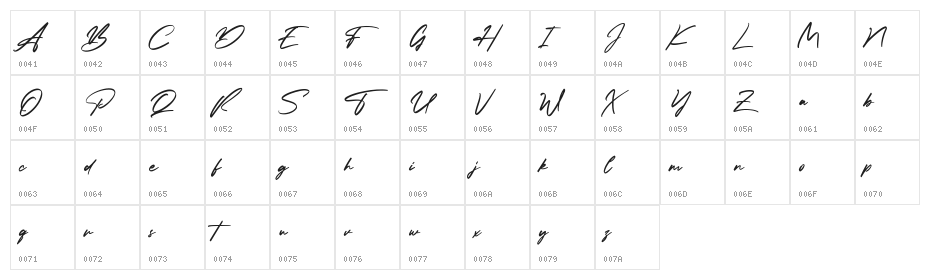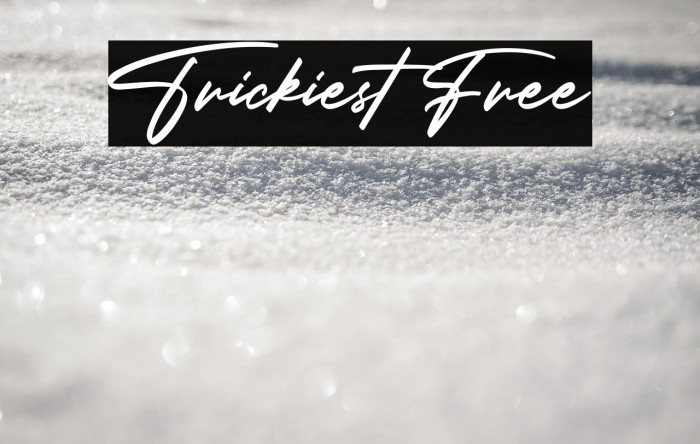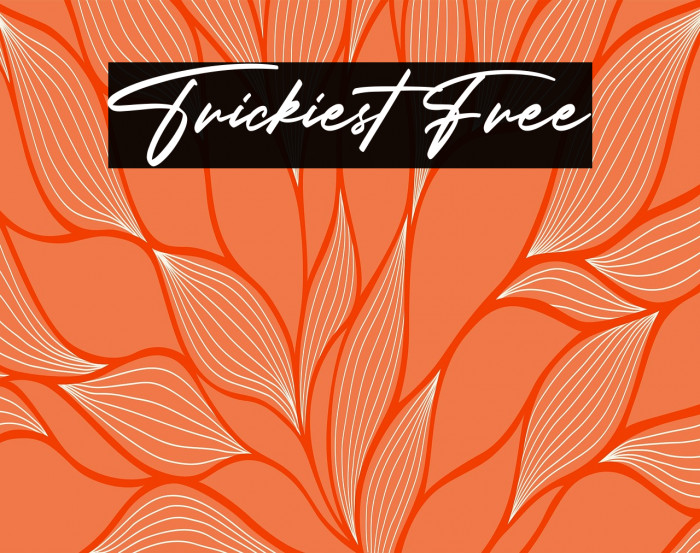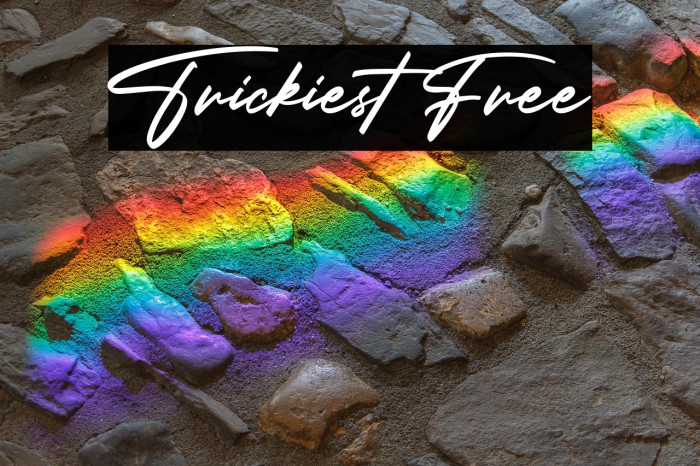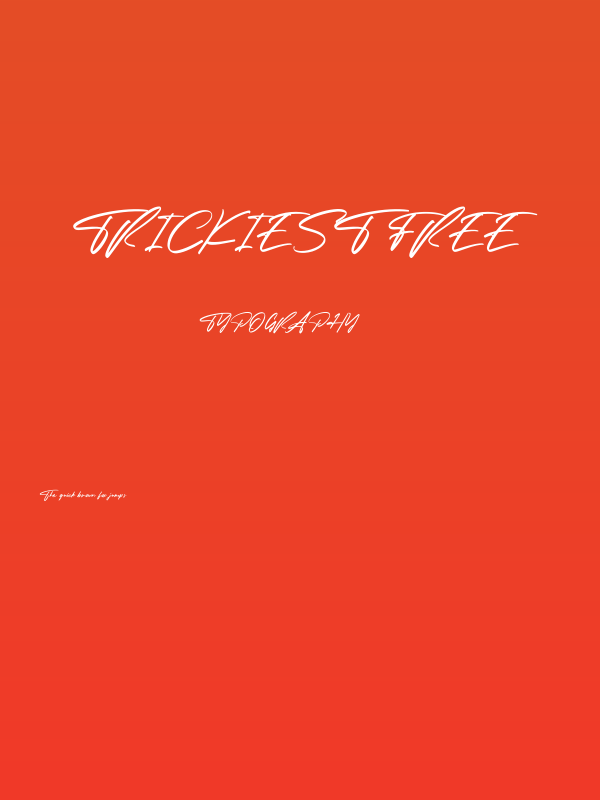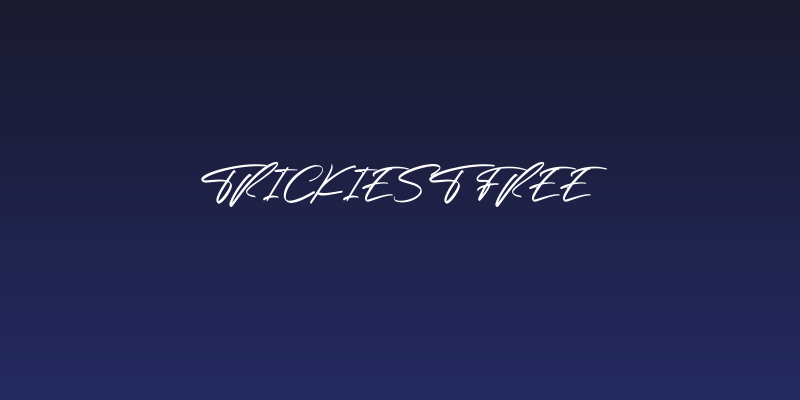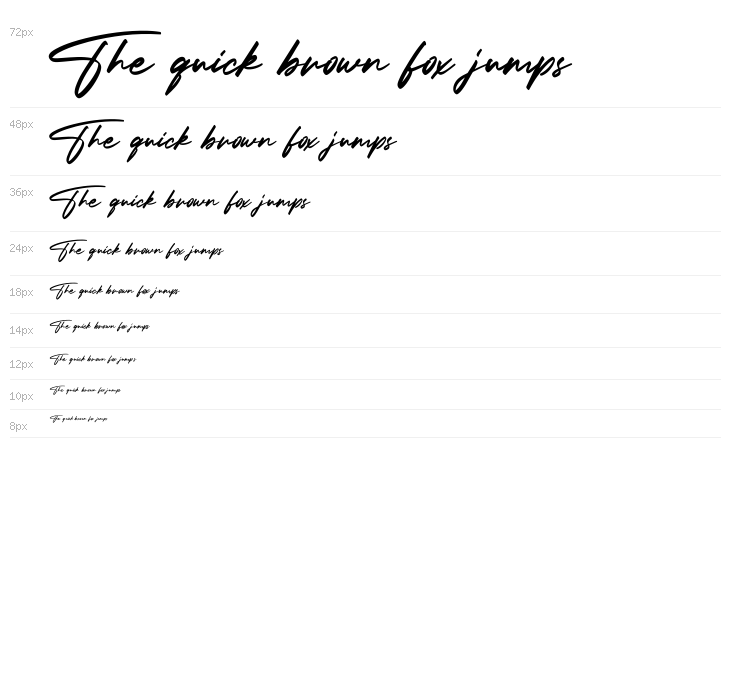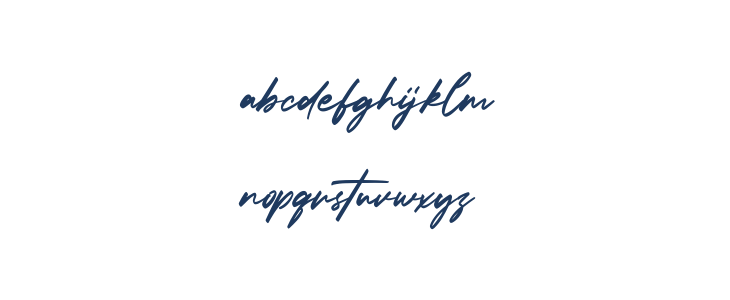
This font features a dynamic and fluid script style, characterized by its elegant, flowing lines and cursive letterforms. The uppercase letters are bold and sweeping, with a sense of movement that suggests a handwritten touch. The lowercase letters maintain a consistent flow, with smooth connections between characters, enhancing its cursive appeal. The font's overall appearance is both stylish and sophisticated, making it suitable for projects that require a personal or artistic flair. The characters are well-spaced, ensuring readability while maintaining the script's natural flow.
| Use Case | Logos, Invitations, Branding |
| Proposed Projects | Ideal for wedding invitations, greeting cards, branding, and logo design where a personal touch is desired. |